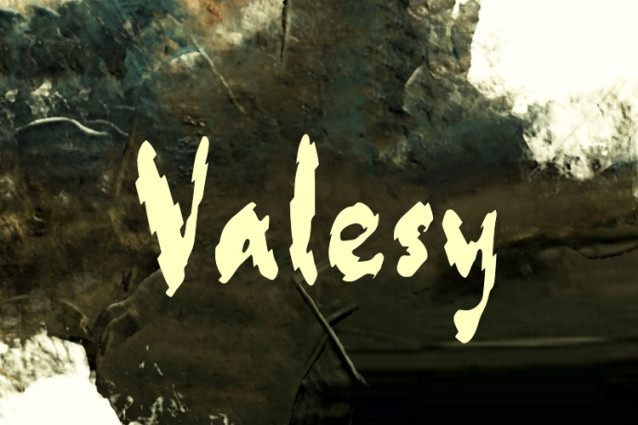
Valesy Display Font
Valesy Display Font, perfectly fit for branding, logo, wedding things, greeting cards, fashion, lookbook, marketing promotion, anytime you want to look fancy elegant but still casual.